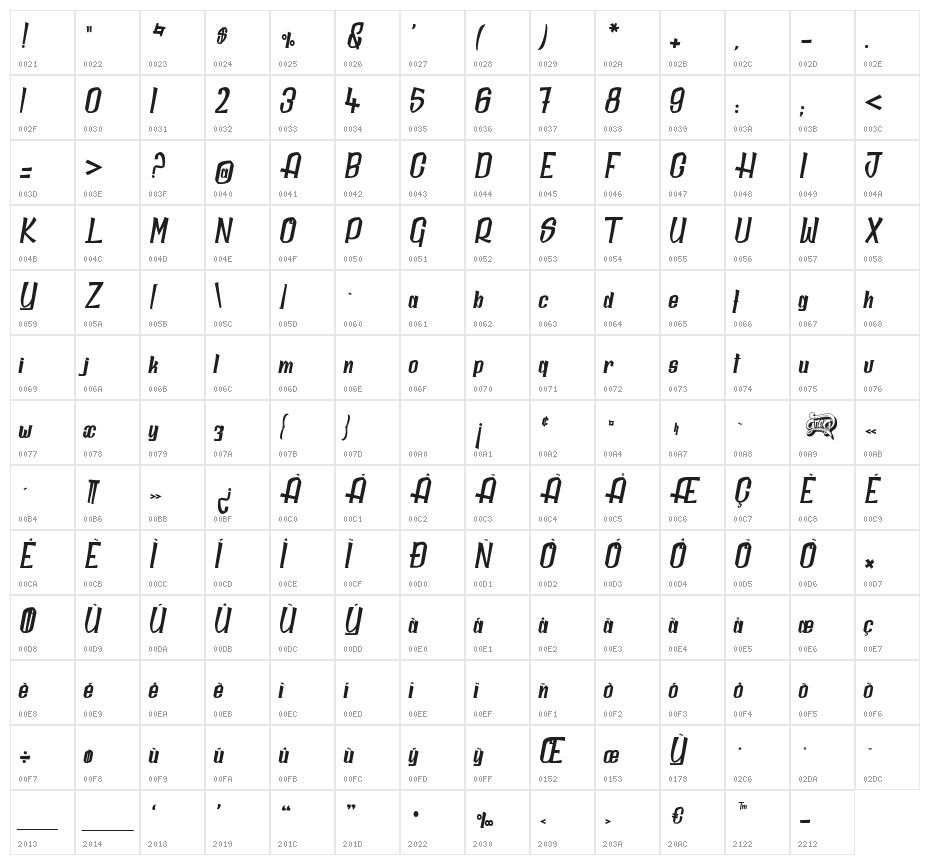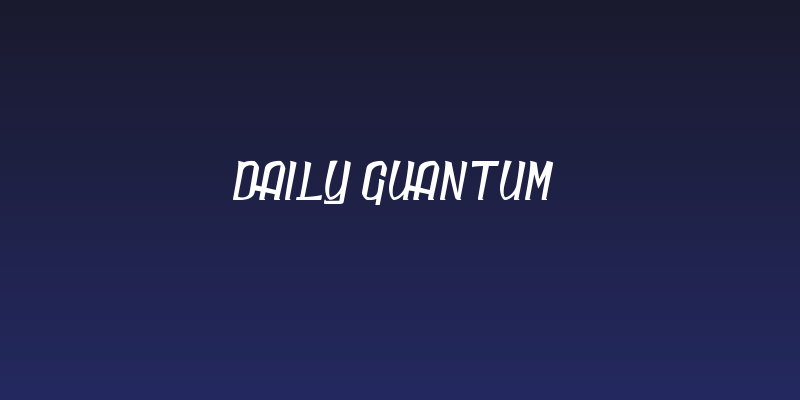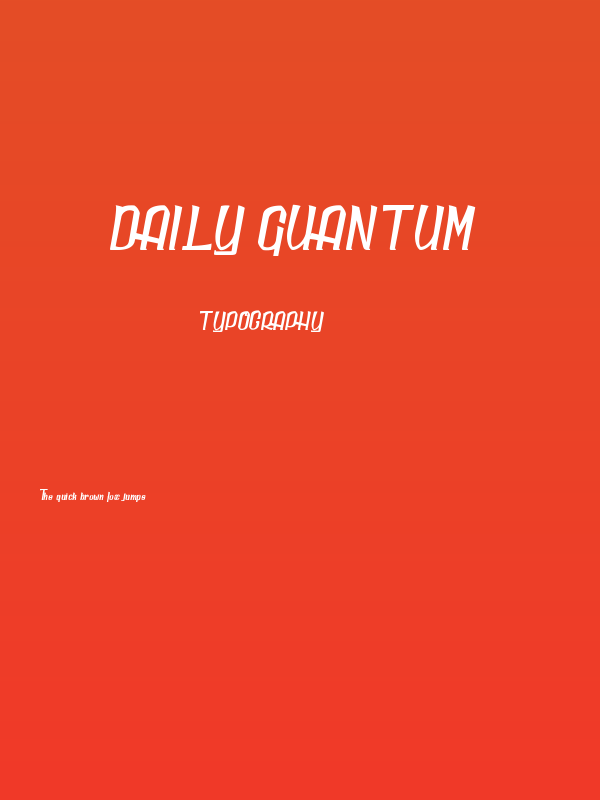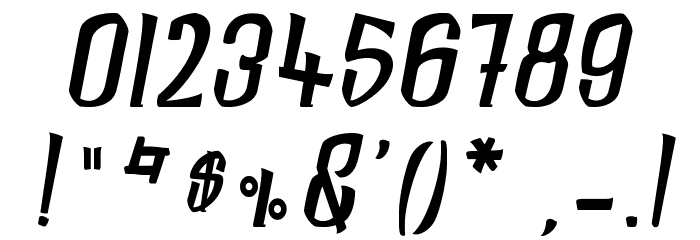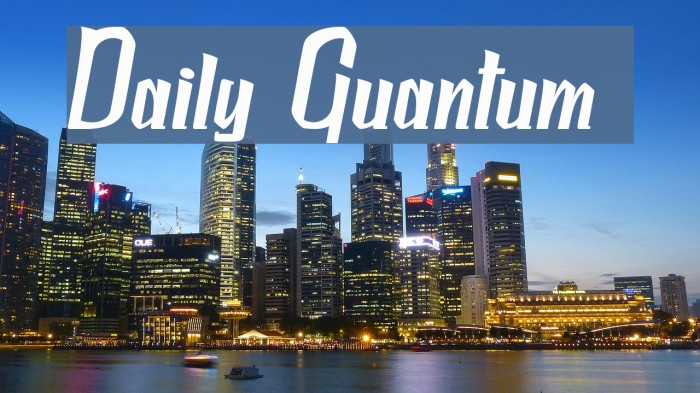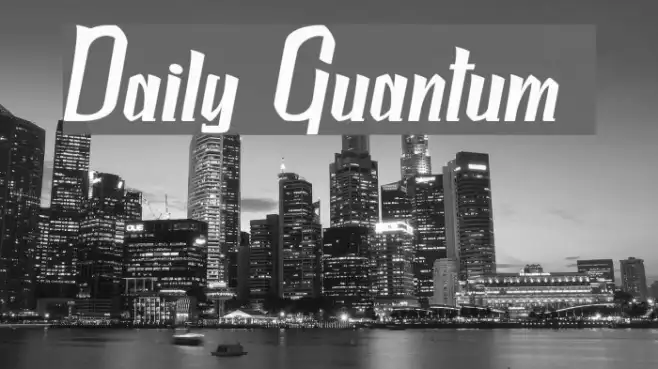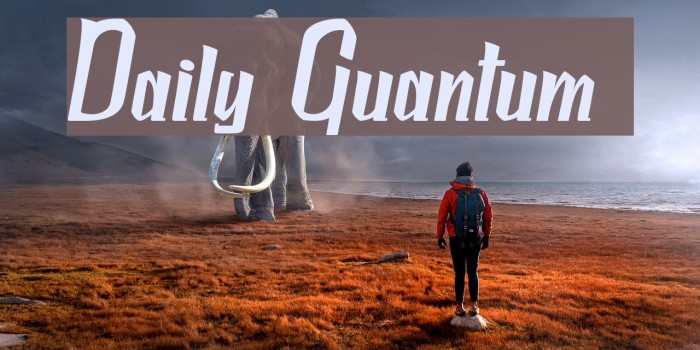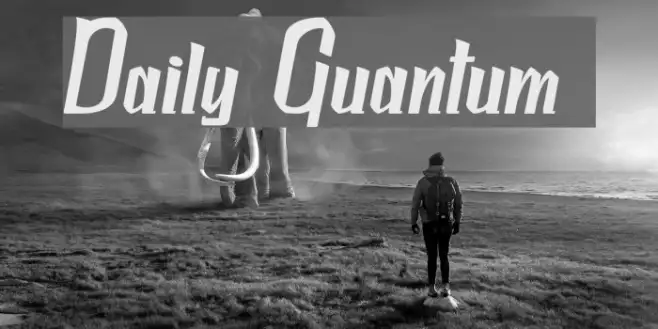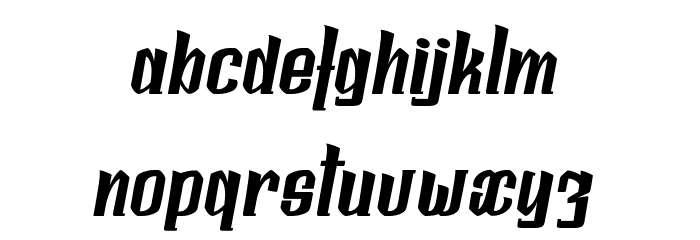
Daily Quantum Font
Daily Quantum Description
This font exhibits a dynamic and energetic style, characterized by its bold and slightly italicized letterforms. The uppercase letters have a distinctive slant, giving them a sense of motion and flair. The lowercase letters maintain this slant, creating a cohesive and unified appearance. The numerals are bold and consistent with the overall style, ensuring readability and impact. Special characters are designed with the same attention to detail, making them stand out while remaining harmonious with the rest of the font. This font's unique style makes it suitable for projects that require a modern and edgy look.
| Proposed Projects | Ideal for branding, posters, and headlines that require a modern and impactful appearance. |